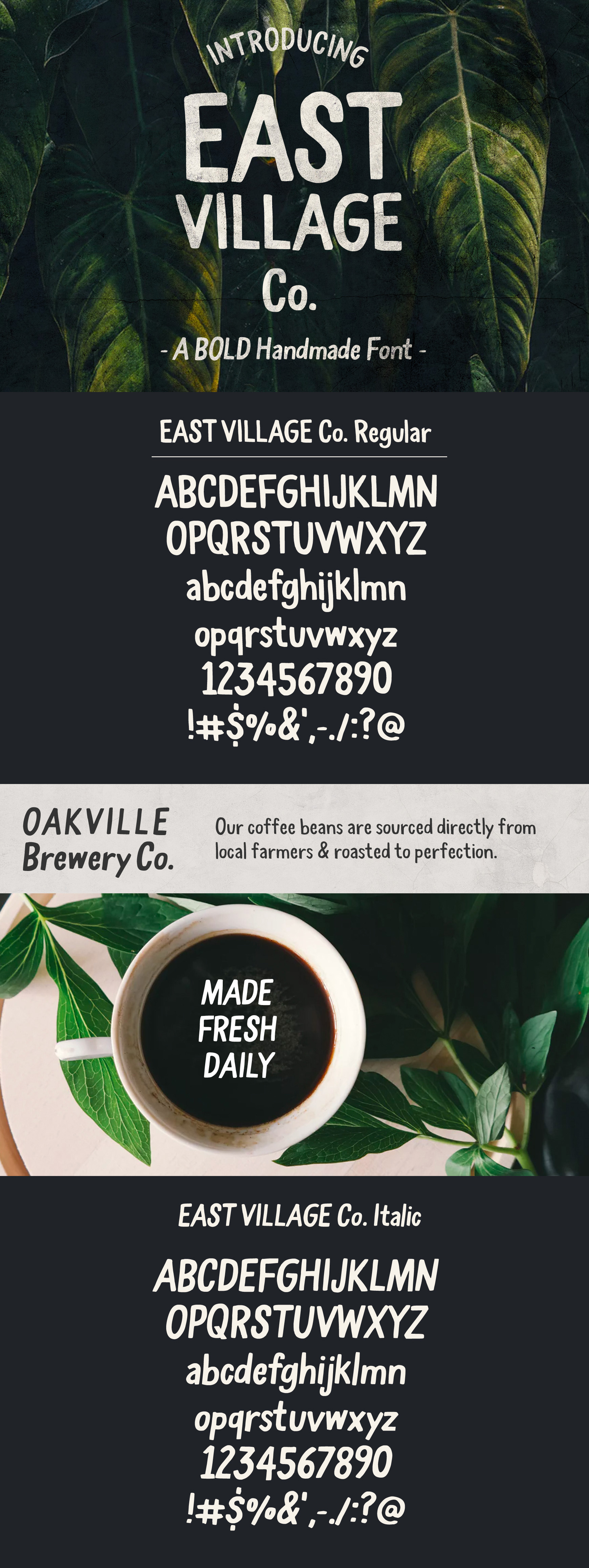
East Village Bold Handwritten Font
East Village Co. is a bold handwritten font that can be used in an all caps style, or with upper and lowercase letters. Originally created with a square-tipped brush, this font family adds a handmade and friendly touch to your projects (such as branding/logos, social media posts, invitations, and more!)
- East Village Co. Regular
- East Village Co. Italic
- East Village Co. Light
A-Z Upper and lowercase included, numbers, and limited punctuation set - see images for included character set, or test below.